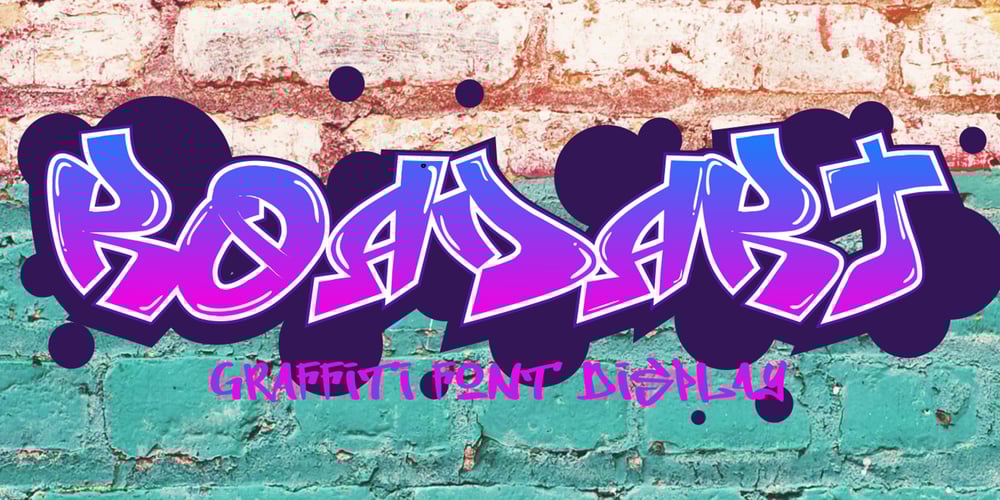
Roadart Grafiti Font Family was designed by Sipanji and published by Sipanji21. Roadart Grafiti contains 1 styles and family package options. Amanzinc Graffiti is an awesome display font that features the street art vibe. Take your designs to the next level with this stunning font!